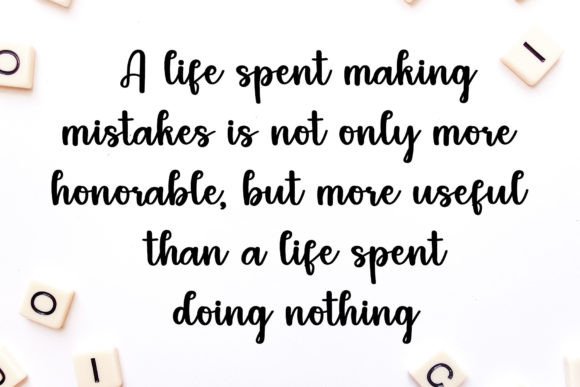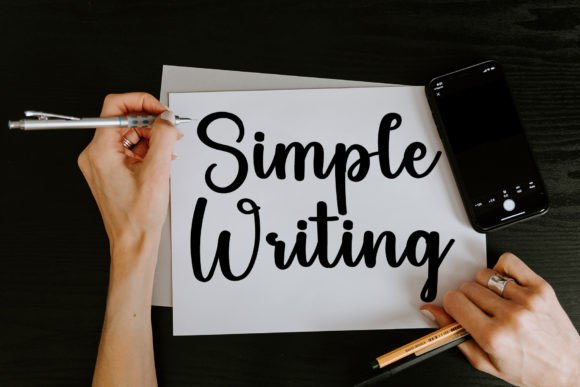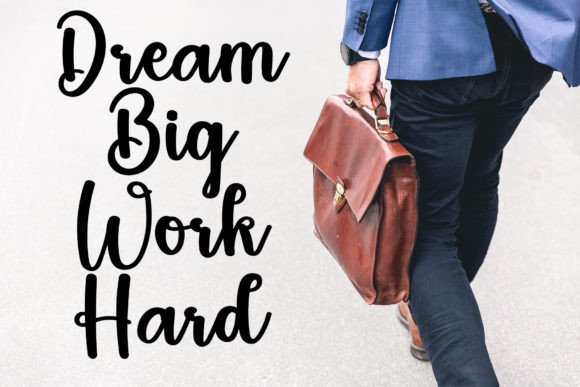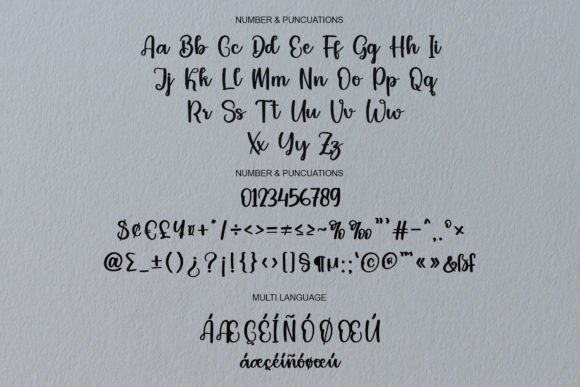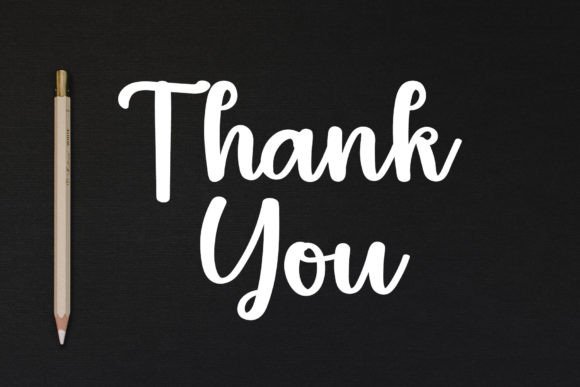
The Quest for the Perfect Font: Discovering Acting Font
I’ll never forget the frustration of working on a design project, hours spent searching for the perfect font to bring my vision to life. My client wanted something elegant, yet modern; a font that would make their brand stand out without looking too flashy. It was then that I stumbled upon Acting Font, a handwritten gem that has since become a staple in my design toolkit.
First Impressions: A Timeless Classic with a Contemporary Twist
Acting Font is a beautifully crafted handwritten font that exudes a sense of timeless classic calligraphy with a contemporary atmosphere. Its impeccable form and balanced design make it perfect for a wide range of projects, from branding and advertising to packaging and editorial design.
• ✨ Elegant and sophisticated design
• 🎨 Versatile and adaptable to various design styles
• 💻 Excellent for both digital and print projects
While Acting Font is an exceptional font, there are a few minor quirks to be aware of:
• ⚠️ Some users might find the font’s subtle imperfections a bit distracting, although I find them charming.
• 🤔 The font’s x-height is slightly lower than average, which might take some getting used to.
The Story Behind Acting Font
Acting Font was designed by a team of typographers who sought to create a font that would blend the elegance of classic calligraphy with the simplicity and versatility of modern design. Inspired by the works of renowned calligraphers, they crafted a font that is both beautiful and functional.
Q: Is Acting Font suitable for body text?
A: While Acting Font is highly legible, its elegant design makes it more suitable for headings and titles. For body text, consider using a more traditional serif or sans-serif font.